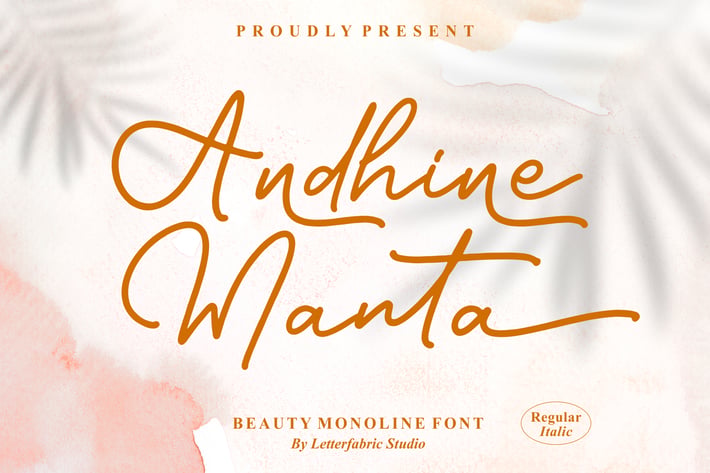
Andhine Manta Monoline Font
Andhine Manta is a modern beauty monoline script font that exudes elegance and warmth through its smooth, handcrafted strokes. With a graceful flow and natural handwriting feel, it’s perfect for designs that need a touch of personal charm and sophistication.
Ideal for wedding invitations, branding, quotes, and packaging, Andhine Manta adds a stylish and timeless character to every project. Available in Regular and Italic styles to bring flexibility and refinement to your typography work.
Monoline Script Typeface
Regular & Italic Styles
Uppercase & Lowercase Letters
Numerals & Punctuation
Smooth Flowing Lines
Wedding Invitations
Branding & Logo Design
Social Media Posts
Beauty & Lifestyle Packaging
Greeting Cards & Quotes
* Editorial & Photography Projects
Soft, elegant, and effortlessly beautiful — Andhine Manta brings your words to life with timeless charm and handwritten grace.